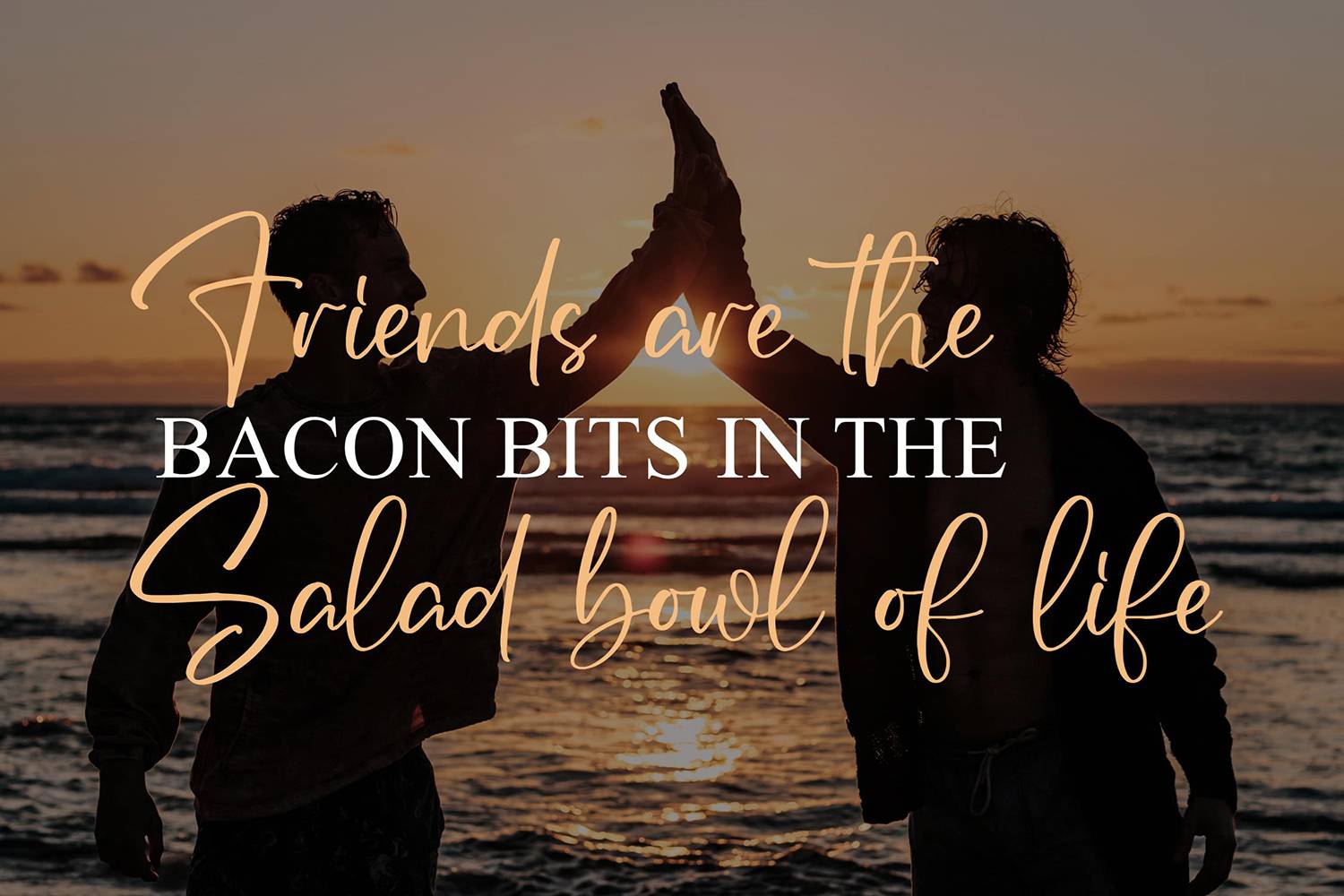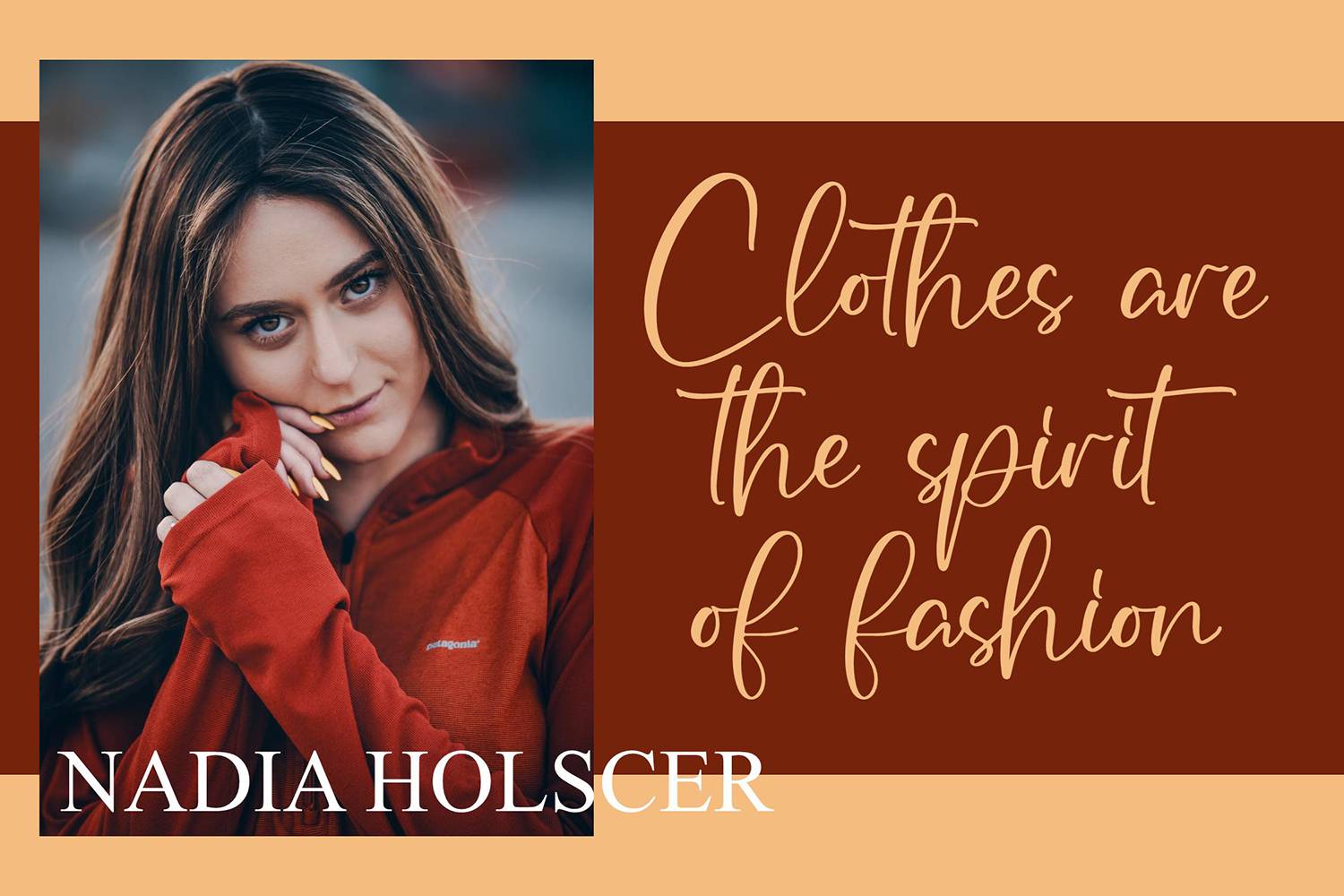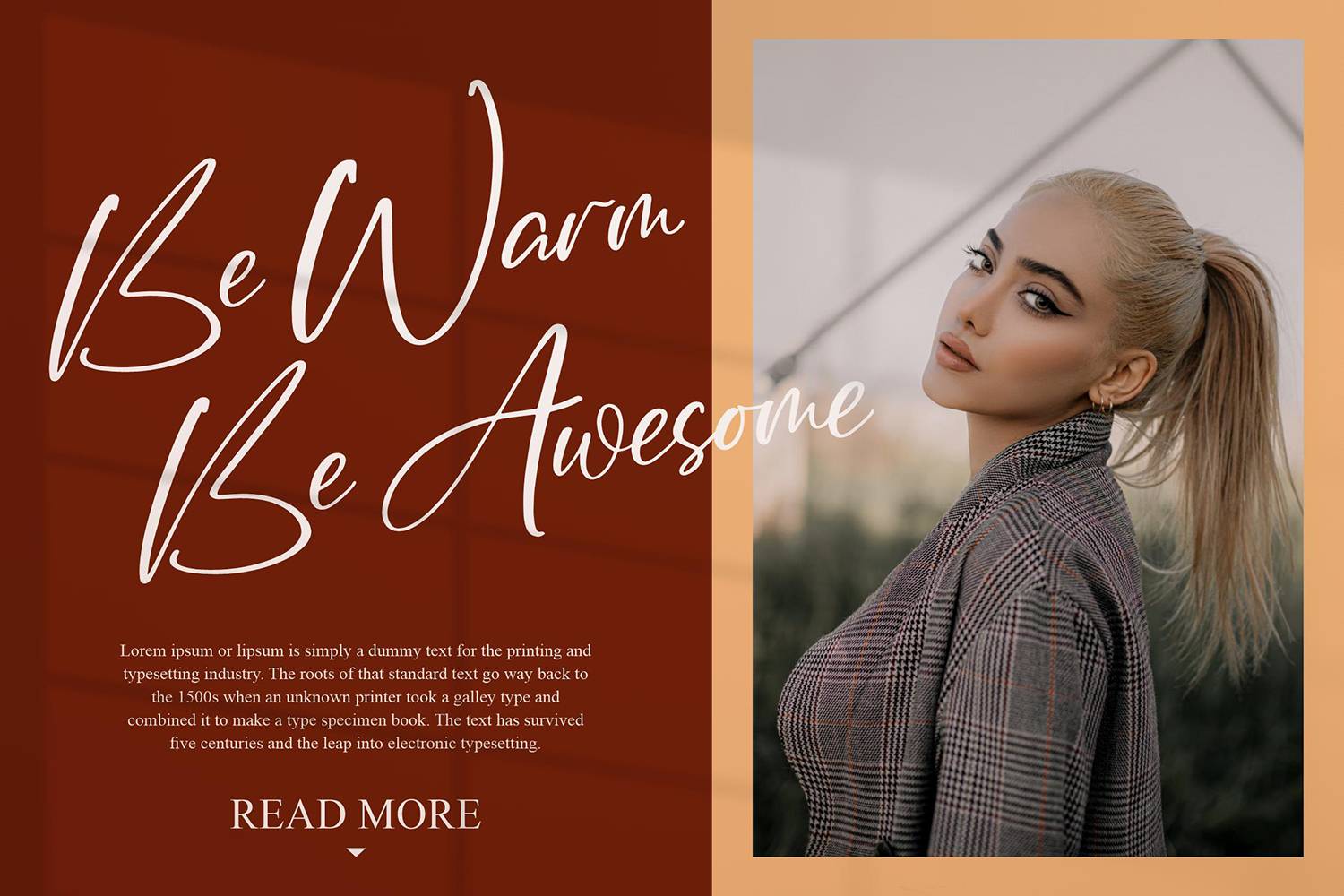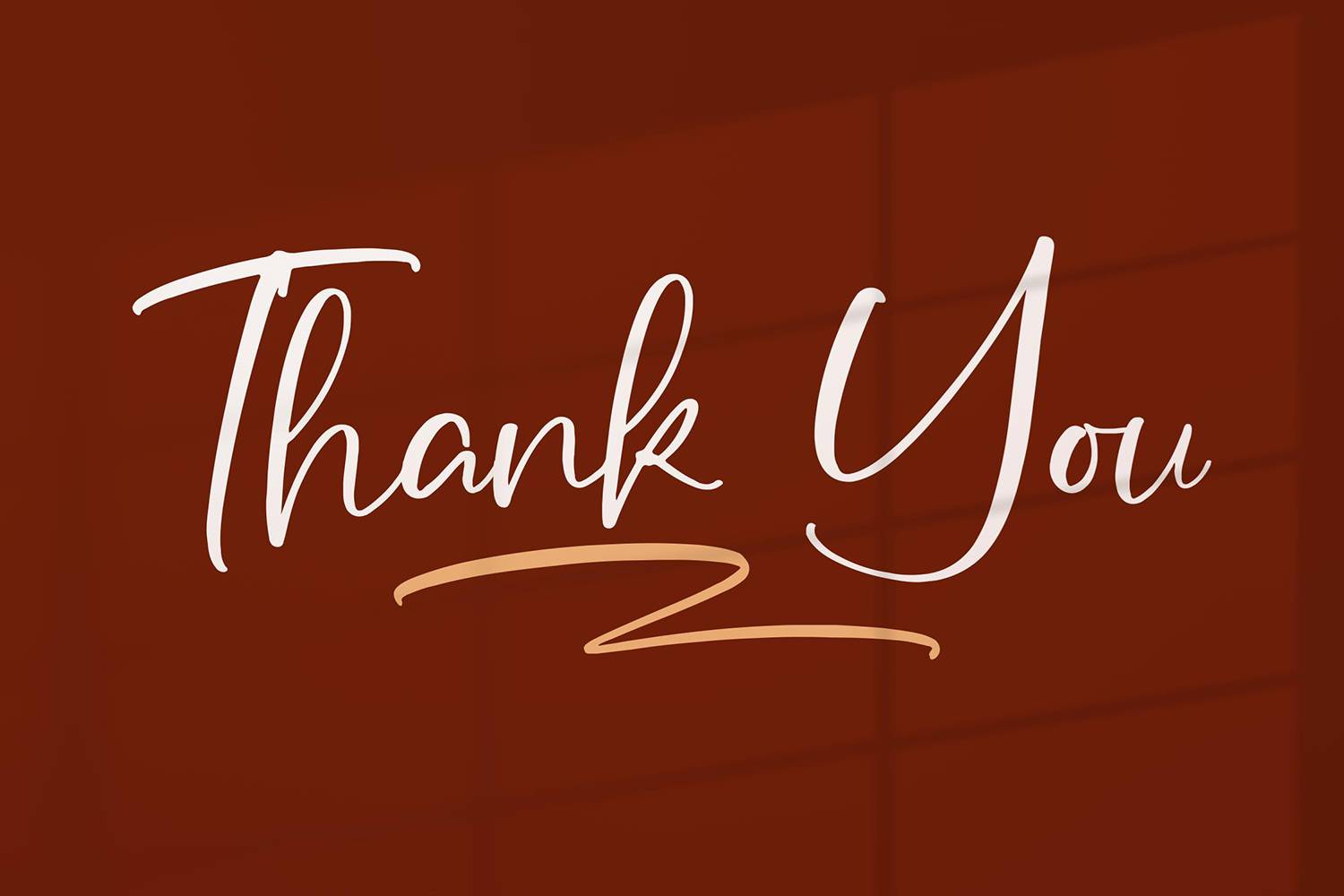
Jack Masson is a graceful, handwritten script font characterized by its elegant, flowing strokes and natural, casual style. Its slender, slightly varied line weight and airy letter spacing give it a stylish yet approachable feel, perfect for branding, invitations, and personal projects that seek a touch of refined warmth and creativity. This font shines in contexts that benefit from a personal, artistic touch while maintaining legibility.
Jack Masson Font
About Jack Masson Font